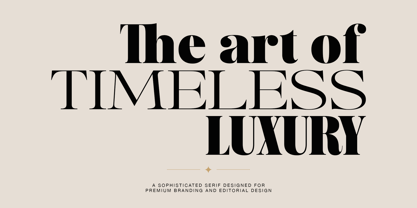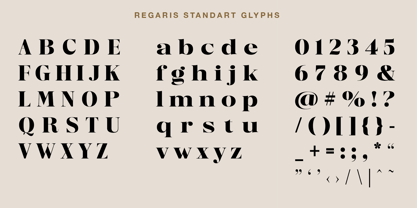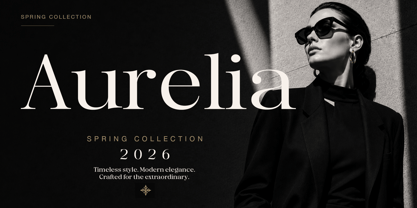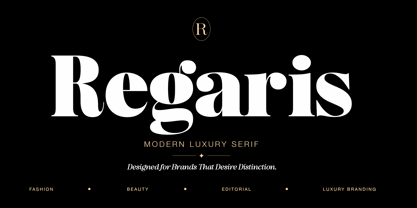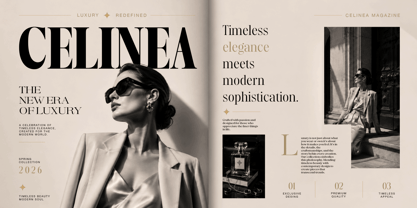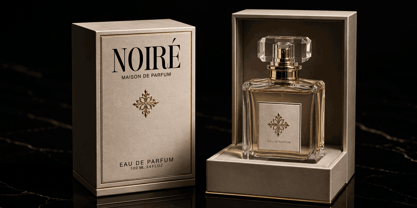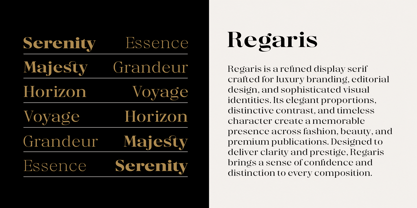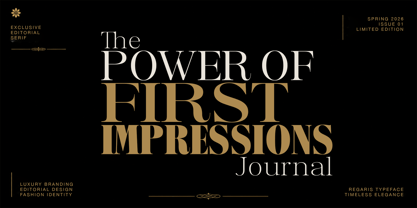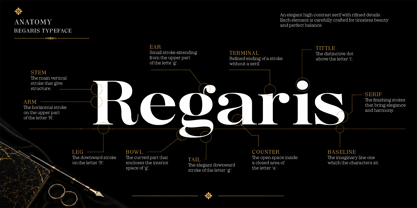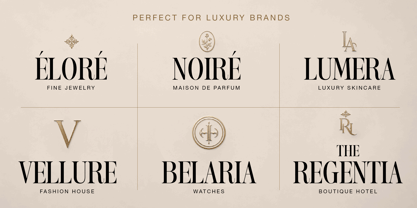
Regaris
Regaris is a sophisticated high-contrast serif typeface crafted for luxury branding, editorial design, fashion campaigns, premium packaging, and elegant visual identities. Designed with refined proportions, graceful curves, and striking contrast, Regaris delivers a timeless presence that feels both classic and contemporary.
Its distinctive character shines across headlines, logos, magazines, beauty products, jewelry brands, boutique hotels, and high-end marketing materials. Every detail has been carefully developed to create a strong visual impression while maintaining readability and elegance.
Regaris comes as a complete type system featuring 27 styles and 1 Variable Font, built from 9 weights across 3 widths:
• Normal
• Condensed
• Expanded
The family offers exceptional flexibility for modern design workflows, allowing designers to create sophisticated typographic hierarchies while maintaining a consistent visual voice.
In addition to its extensive weight and width range, Regaris includes carefully crafted ligatures and comprehensive Latin Pro language support, making it suitable for international branding and editorial projects.